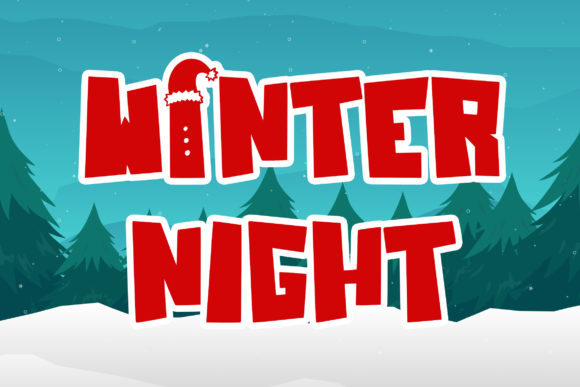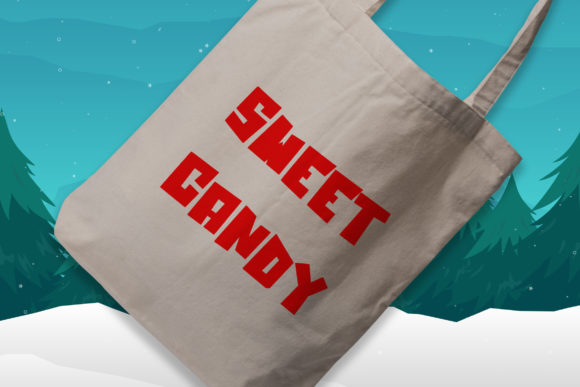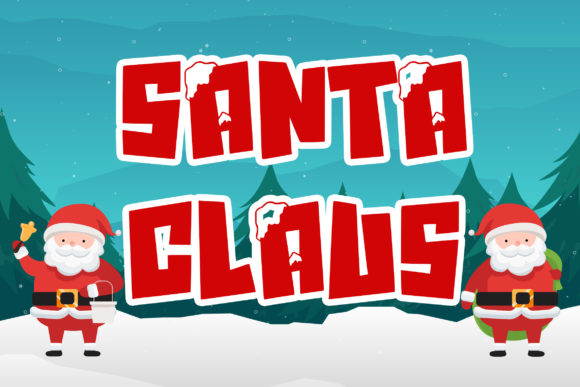
Introduction to Santa Day Font
As you sit at your desk, surrounded by glitter, glue, and scraps of colorful paper, you finally feel the spark of creativity strike. It’s that moment when a project comes together, and you know exactly what it needs – a dash of festive flair. And that’s where the magical Santa Day Font comes in – a high-quality display font that’s perfect for adding a touch of whimsy to your creative project.
Whether you’re designing a logo, branding materials, or a storybook, the Santa Day Font is a valuable design resource that can elevate your work to the next level. With its transparent background and free download option, you can easily incorporate this font into your project without any hassle. Its unique design makes it a standout choice for any creative endeavor, and its high-quality design ensures that it will look great in any setting.
As a designer, you know the importance of having the right tools at your disposal. The Santa Day Font is a must-have for anyone looking to add a touch of festive cheer to their work. So why settle for ordinary when you can have extraordinary? Get ready to make your project shine with the enchanting Santa Day Font!
Key Features of Santa Day Font
- Unique and playful design perfect for a creative project or festive occasion
- Includes a range of characters, including uppercase and lowercase letters, numbers, and punctuation marks
Honest Review: Santa Day Font
I recently stumbled upon the Santa Day Font, and I must say, it’s a wonderful addition to any creative project that requires a playful, festive touch. With its transparent background, this font is perfect for those who want to add some holiday cheer to their designs without worrying about background overlays.
Here’s what works well: ✨ The font’s high quality is evident in its crisp, clean lines and varied character styles, making it ideal for creating eye-catching graphics and posters. The free download option is also a huge plus, as it allows designers to experiment with the font without committing to a purchase.
- ✨ Perfect for creative projects that require a festive touch
- ✨ High-quality design with crisp, clean lines
- ✨ Transparent background for easy background overlays
However, I do have to mention a few limitations: ⚠️ The font’s character set is relatively limited, and it may not be suitable for long-form text. Additionally, some users may find the font’s playful style too juvenile for certain projects.
Overall, I’m quite impressed with the Santa Day Font, and I’d definitely recommend it to designers looking for a fun, high-quality font for their creative projects. Just be mindful of its limitations, and you’ll be all set for a holiday design extravaganza!
Santa Day Font
What is Santa Day Font?
Santa Day Font is a free, high-quality design resource that can add a festive touch to your creative project. This font features a transparent background, making it perfect for overlaying on images or using as a standalone element.
Tips for Getting the Most Out of Santa Day Font
To get the most out of Santa Day Font, try using it in combination with other design elements, such as images or graphics. You can also experiment with different font sizes and colors to create a unique look.
Santa Day Font is perfect for:
- Holiday-themed designs
- Christmas or New Year’s Eve party invitations
- Festive social media posts
- Designing greeting cards or gift tags